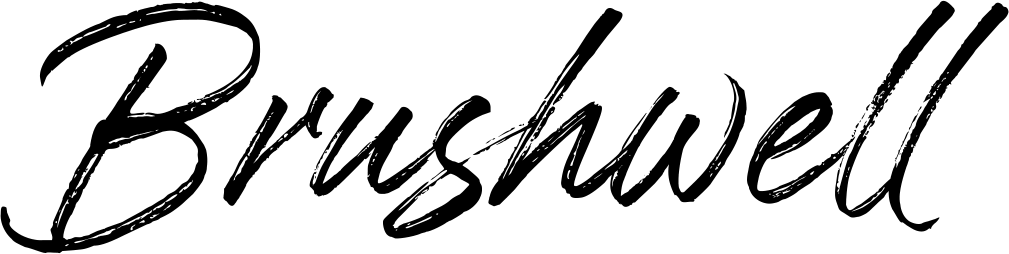
Brushwell Font
No one can skip the playful and warm vibes of the script brush fonts. The art of play of a light inky brush style assembles this cute Brushwell font to give exquisite to your typography design. Simply put, it might be difficult to read in some situations, so try to use this fast handwriting font in statuses like quotes, invitations, posters, cards, T-shirts, and other creative designs.